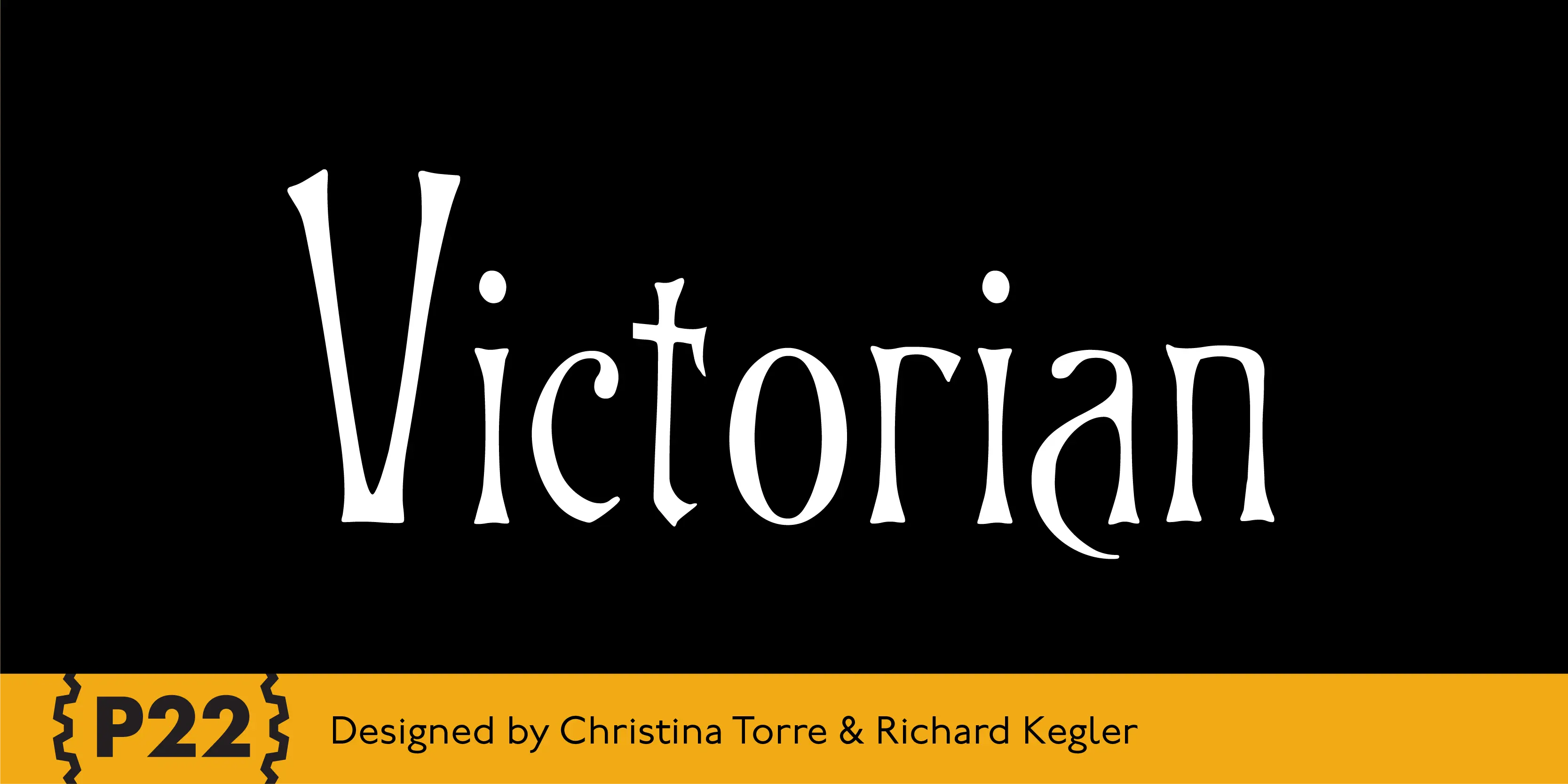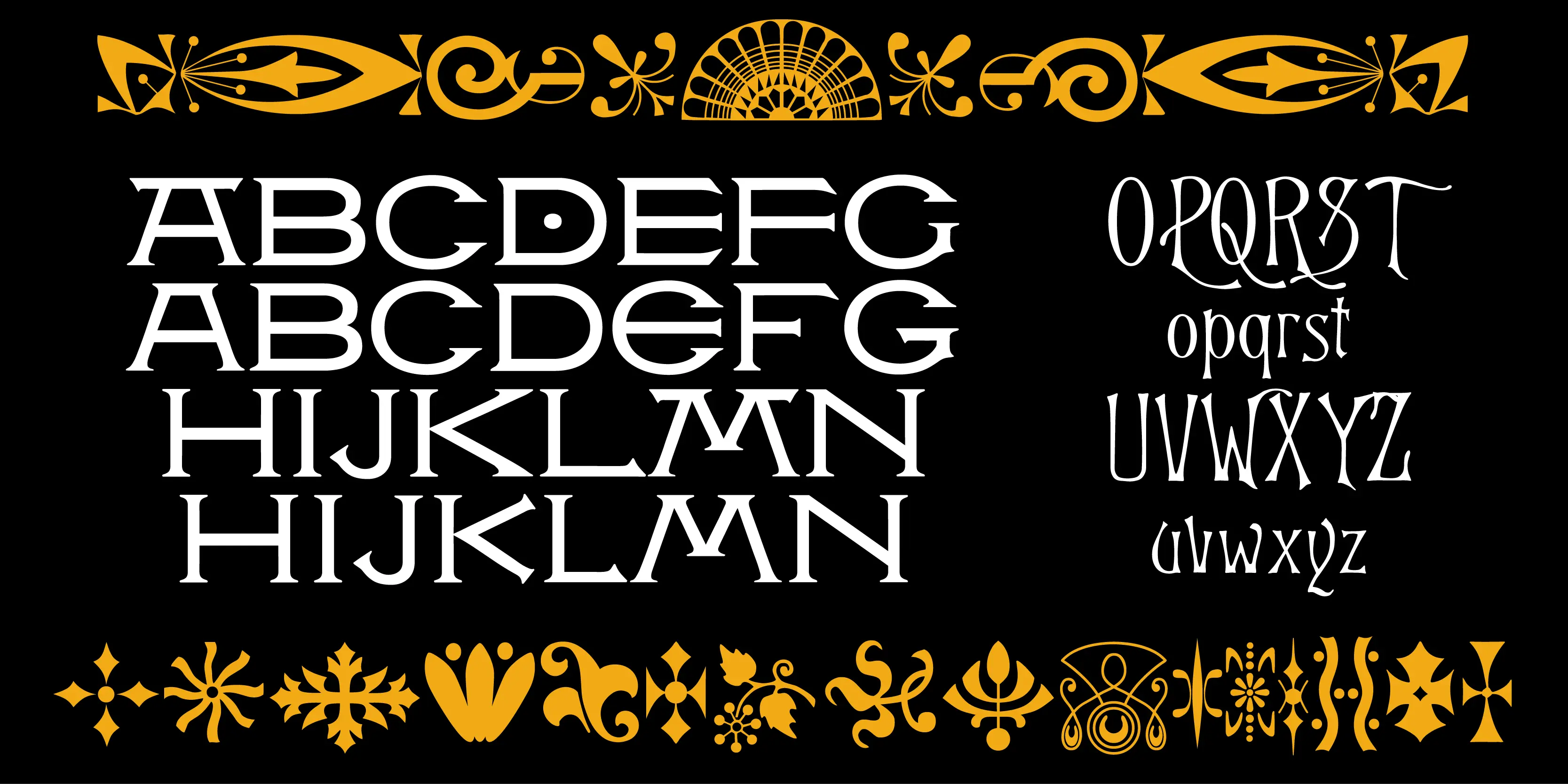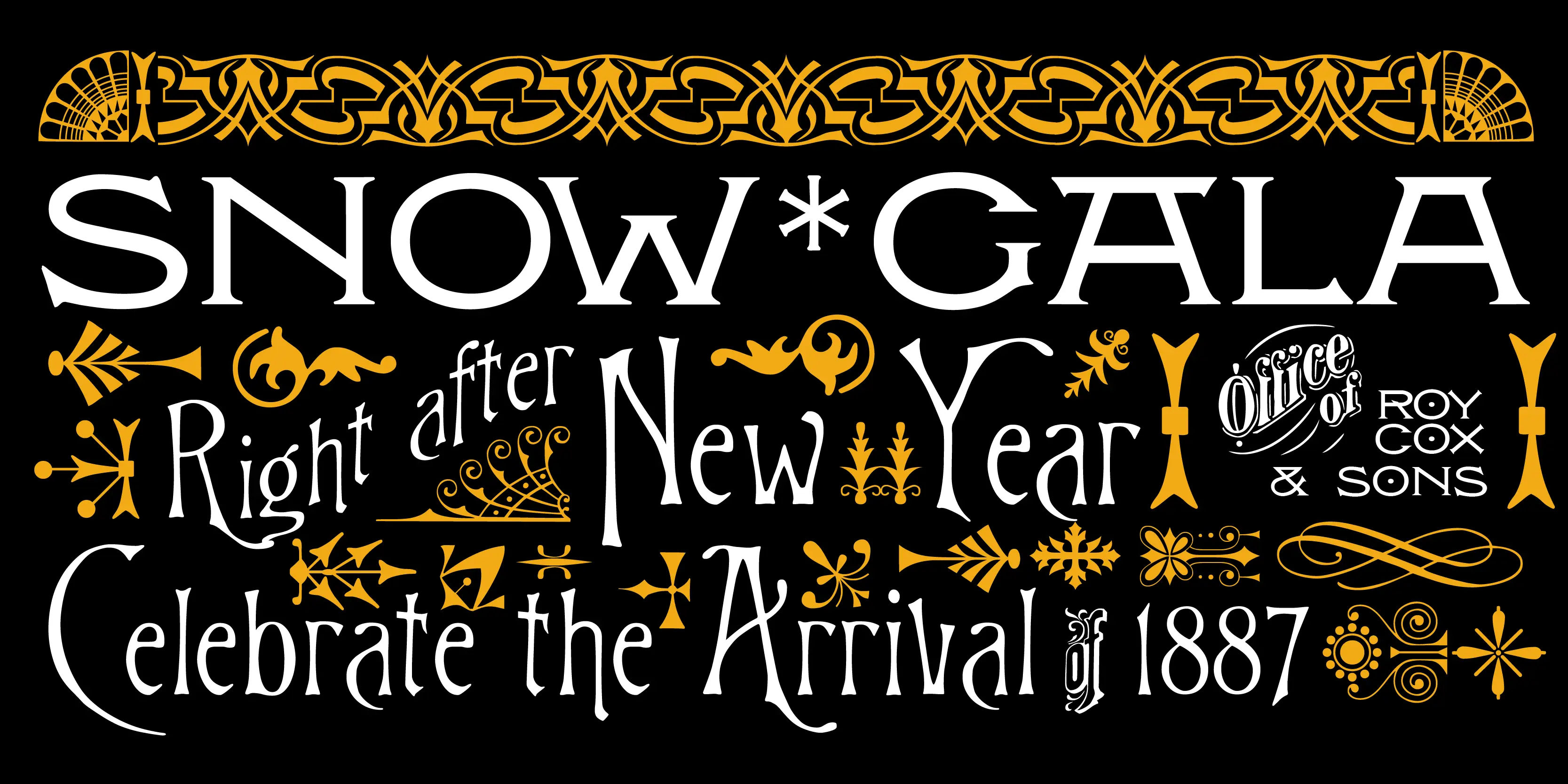
Victorian Font Family
• Victorian Gothic
• Victorian Ornaments One
• Victorian Ornaments Two
• Victorian Swash
Victorian
P22 Victorian is a font set created in conjunction with the Albright-Knox Art Gallery’s exhibition of Victorian-era French artist James Tissot. The fonts developed for the P22 Victorian set are based on historic typefaces dating from the late 19th century. Victorian Gothic was based on a type style called ‘Atlanta’, a simple, expanded width, quirky, yet elegant face similar to ‘Copperplate’. Victorian Swash was inspired by the willowy, delicate face ‘Columbian’, which has also been known in recent years as ‘Glorietta’. The P22 version includes ‘snap-on’ flourishes based on the original ‘Columbian’ ornamental embellishment designs. Victorian Ornaments features over 150 decorative embellishments.
Ornaments
Stylistic Set 1
Stylistic Set 2
Stylistic Set 3